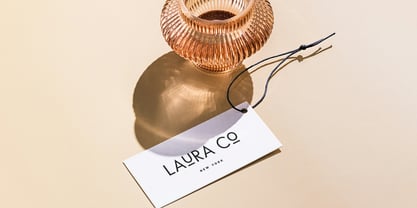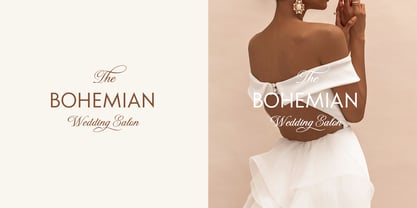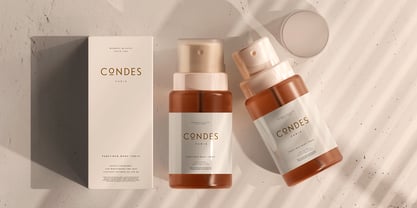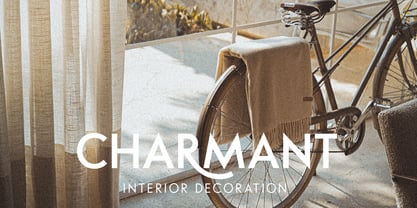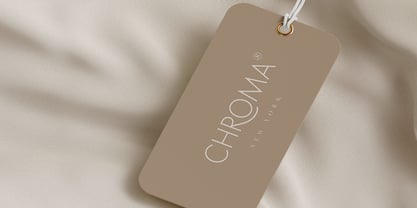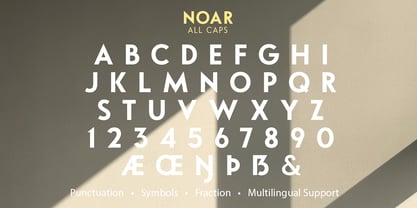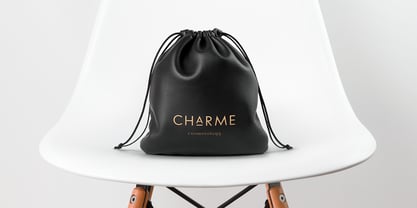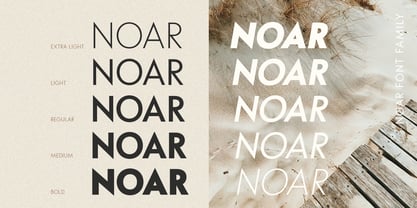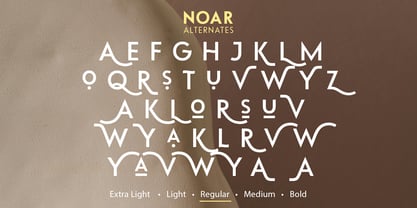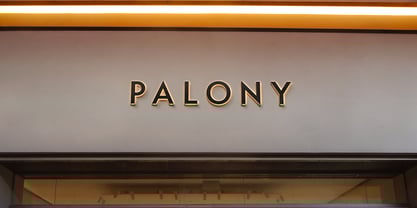
Noar
by Larin Type Co
The Noar Font Family was designed by Pavel Larin and published by Larin Type Co. Noar contains 10 styles and family package options. More about this family
Noar is a contemporary geometric sans serif typeface known for its moderately open apertures, low visual contrast, and outstanding legibility. This versatile font family includes five weights, along with italics, ranging from Extra Light to Bold, making it suitable for a wide range of applications. Whether utilized for large titles or detailed descriptions, Noar consistently delivers clarity and impact. Featuring exclusive uppercase letters and alternative characters, it brings a dynamic and authentic flair to your projects. Ideal for crafting logos, labels, advertising materials, packaging, branding, book covers, magazines, cosmetics, banners, posters, and more, Noar is expertly designed to enhance your visual communication effectively.